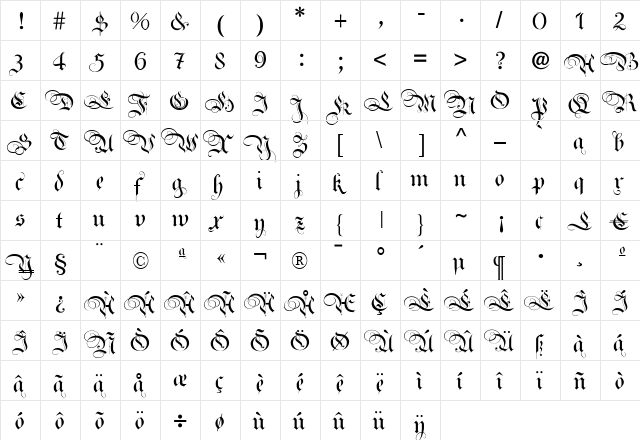
Royal Bavarian Fancy Regular
Design Context for Royal Bavarian Fancy Typeface
Royal Bavarian Fancy is a composed and adaptable typeface that performs quietly and consistently across a wide range of design contexts.